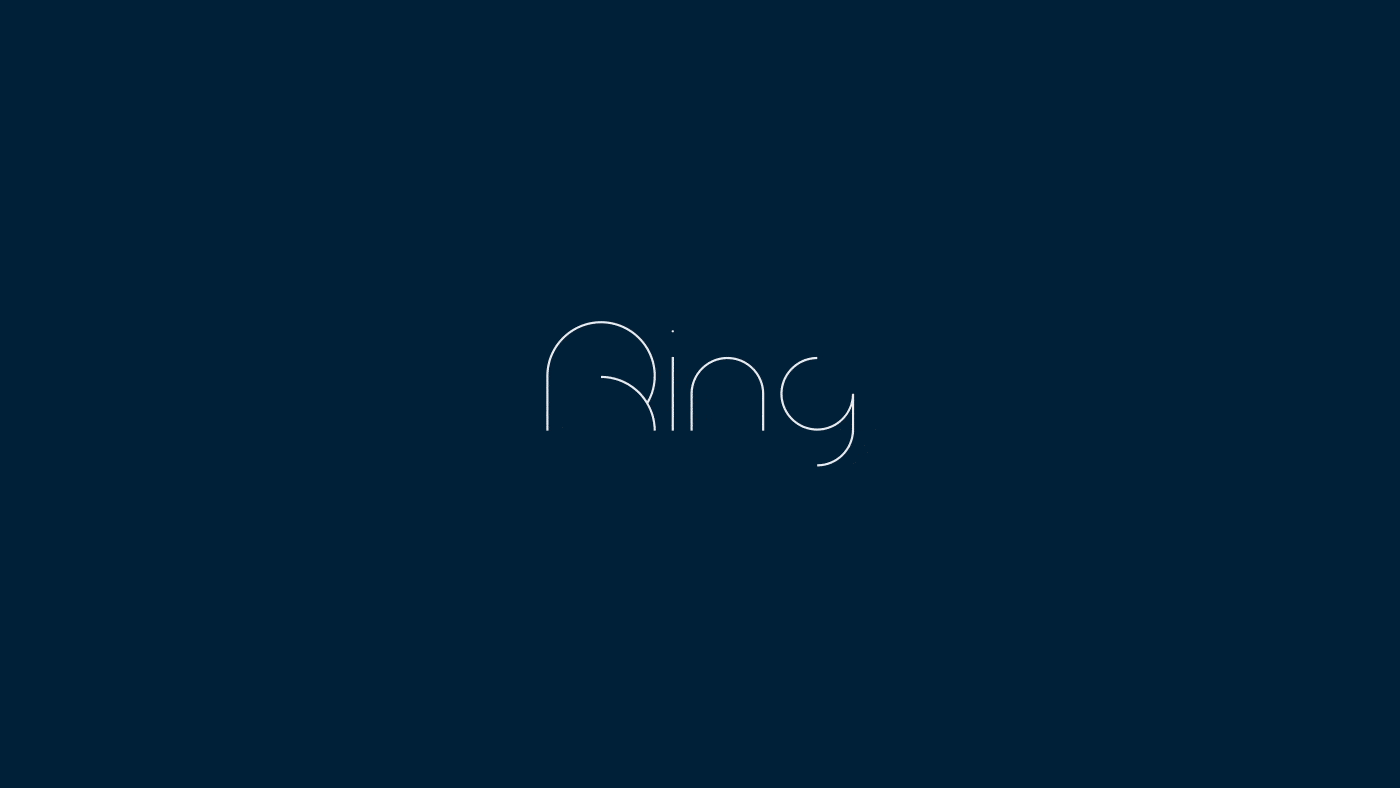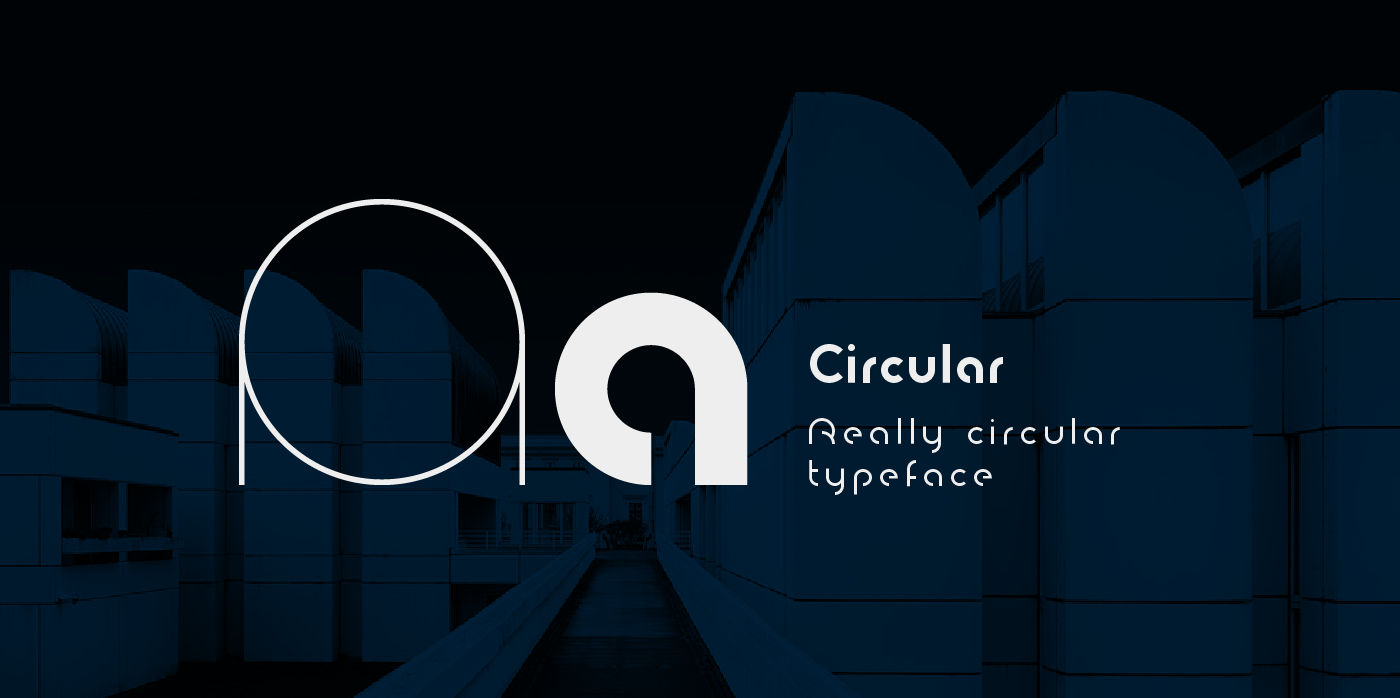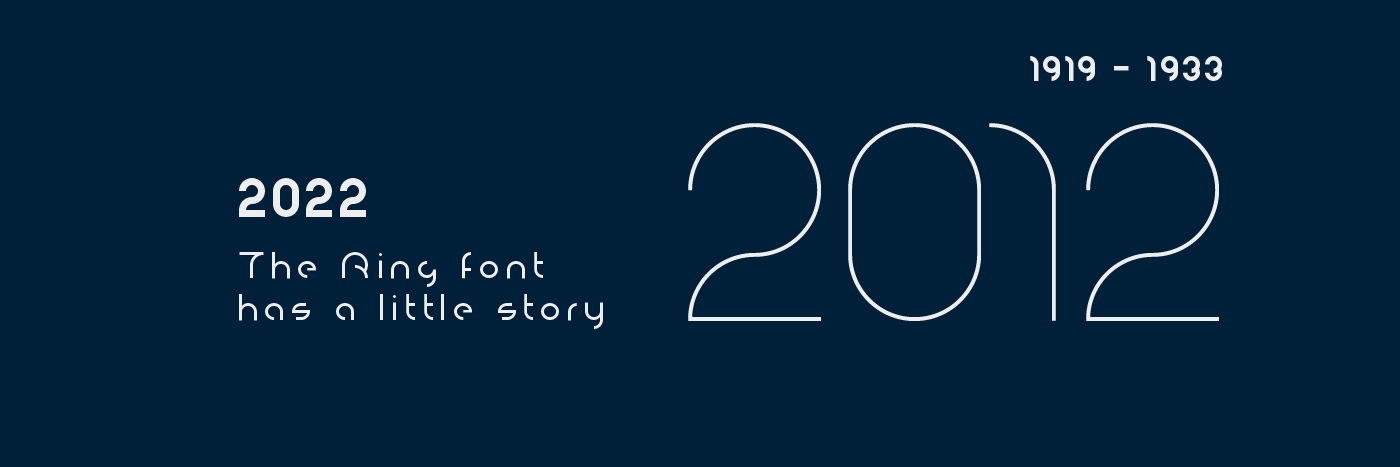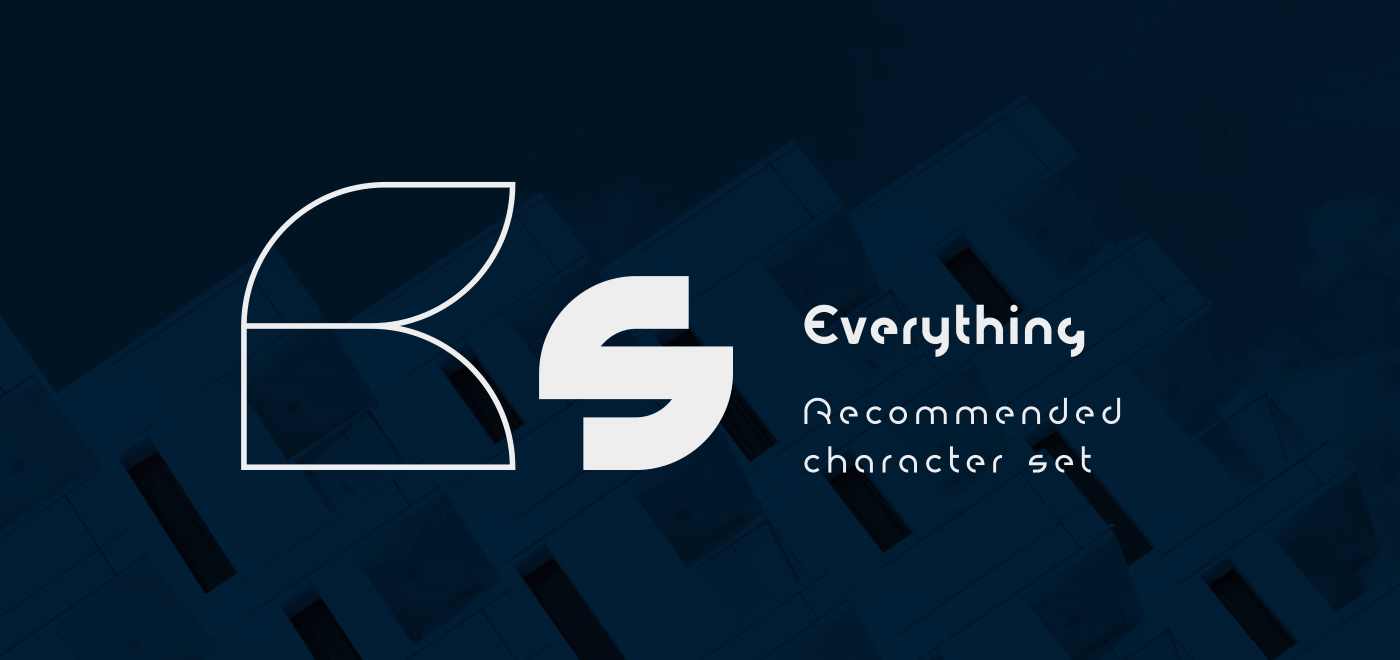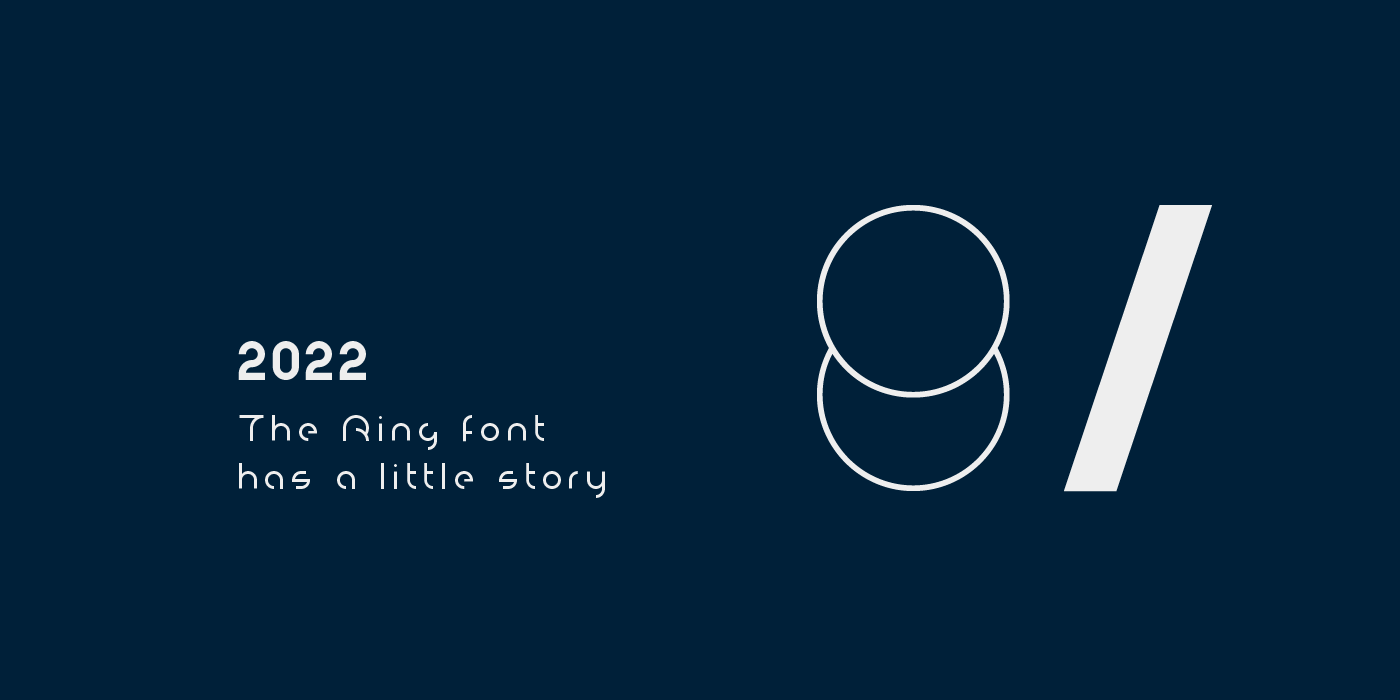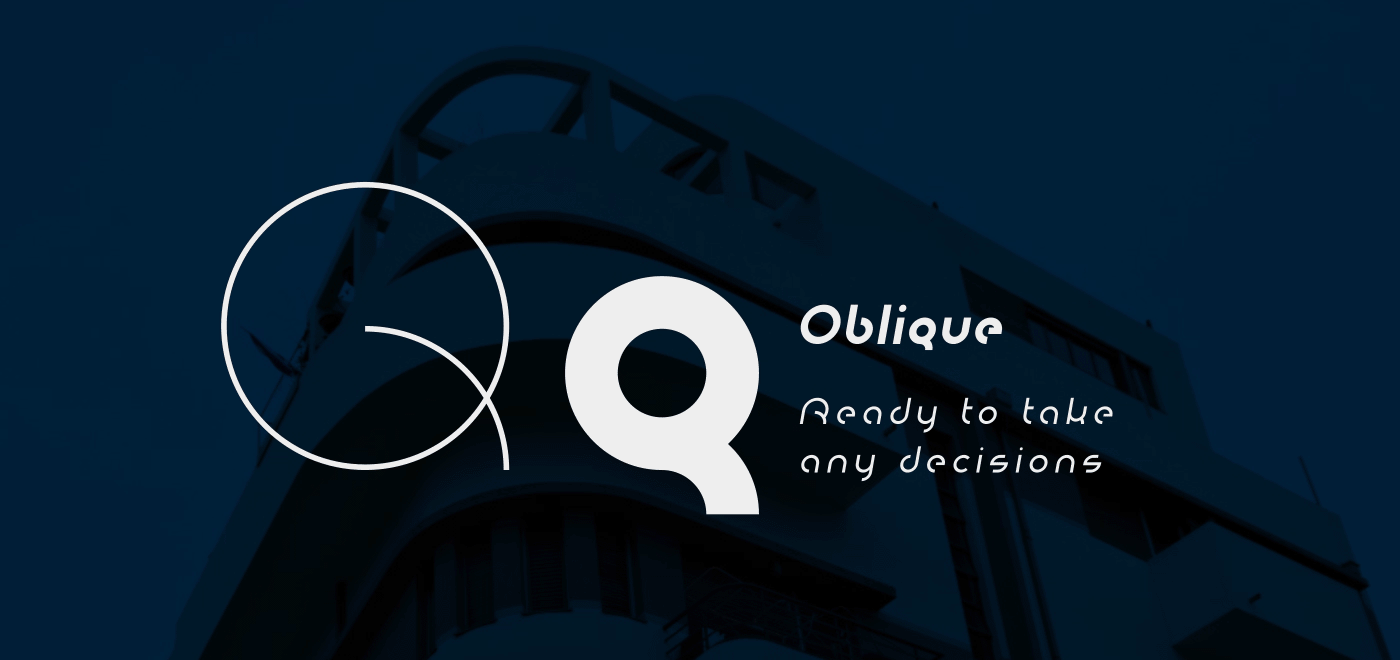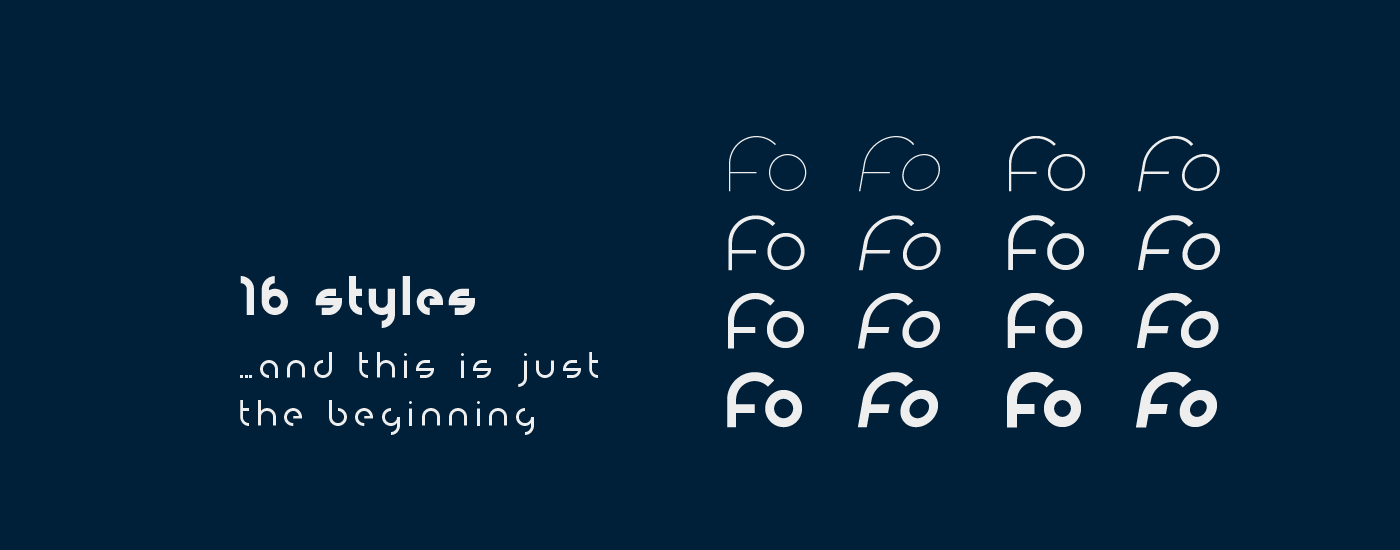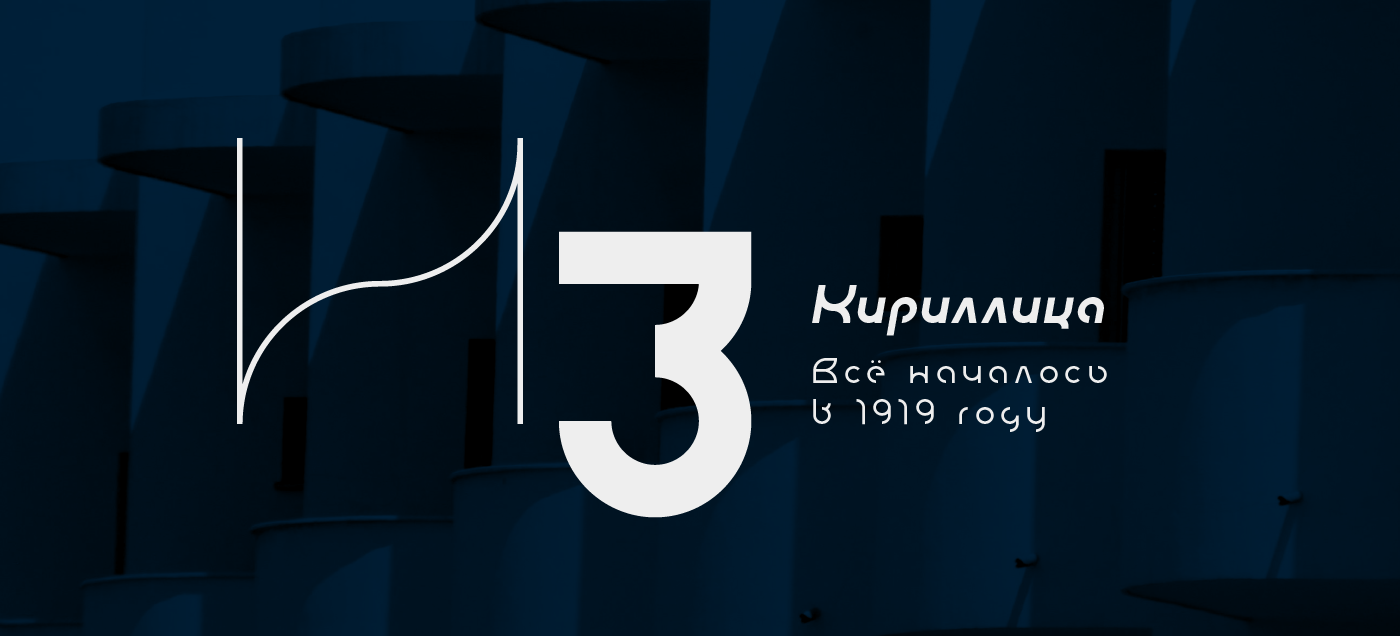
First of all, Ring font has a little story. It was created as an example for Typography Exhibition in Moscow. And the font was immediately awarded! 10 years later, I decided to continue working on it and improve this font.
Ring - really circular typeface. I felt inspired by Bauhaus. I've always wanted to design something similar.
Ring is a cool and geometric-styled font. Expertly designed to make your creation look out of this world, this font will look gorgeous on a variety of ideas. This font is ideal for writing web designs, business cards, or pretty much anything else that requires a unique touch.
Ring font comes in 8 weights and 16 styles and this is just the beginning.
The beginning of a further big font family called Ring!